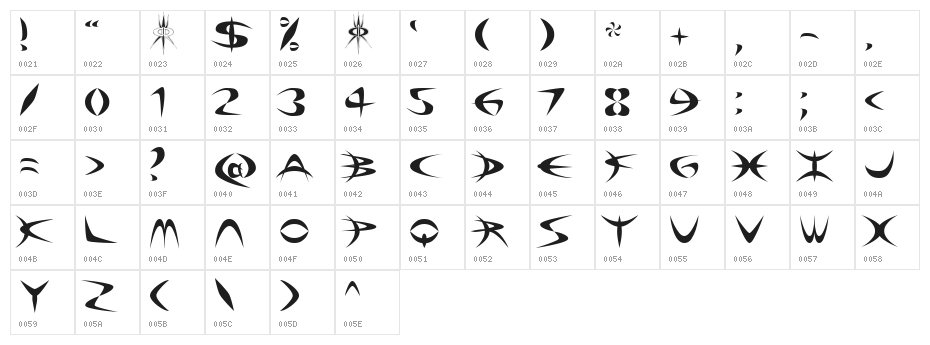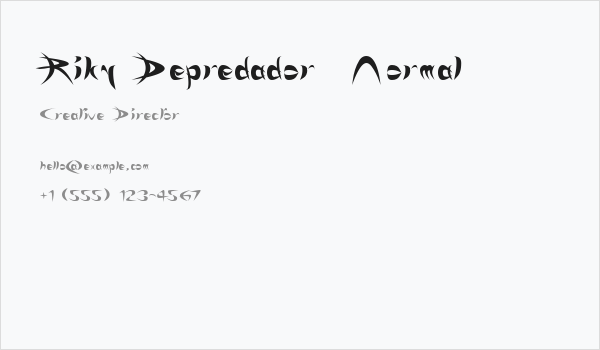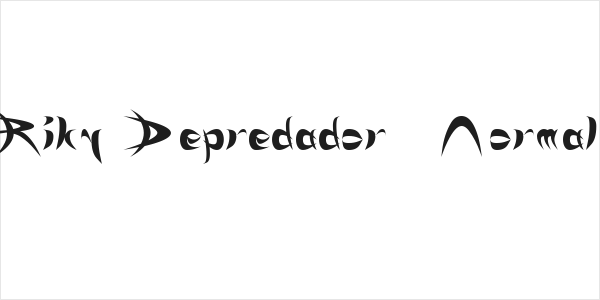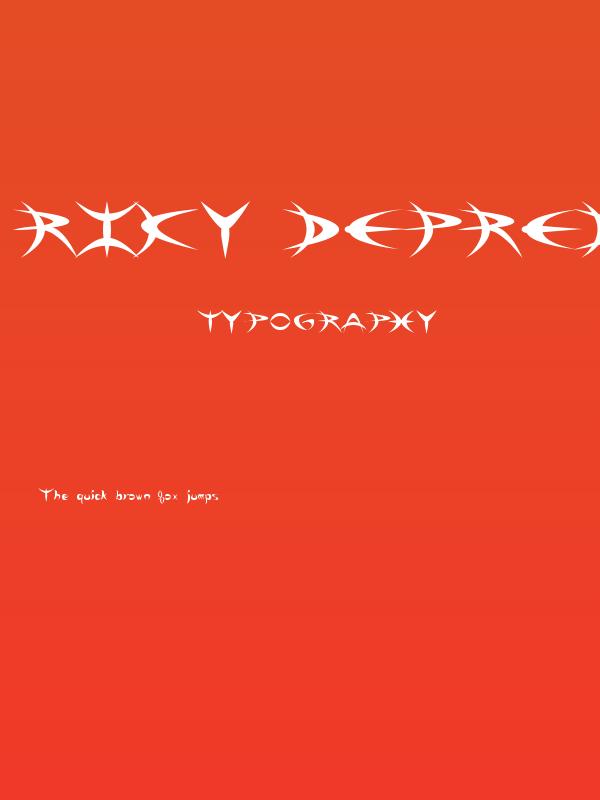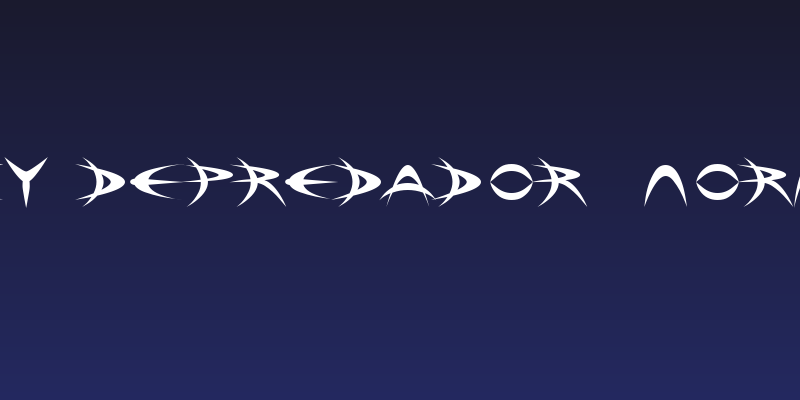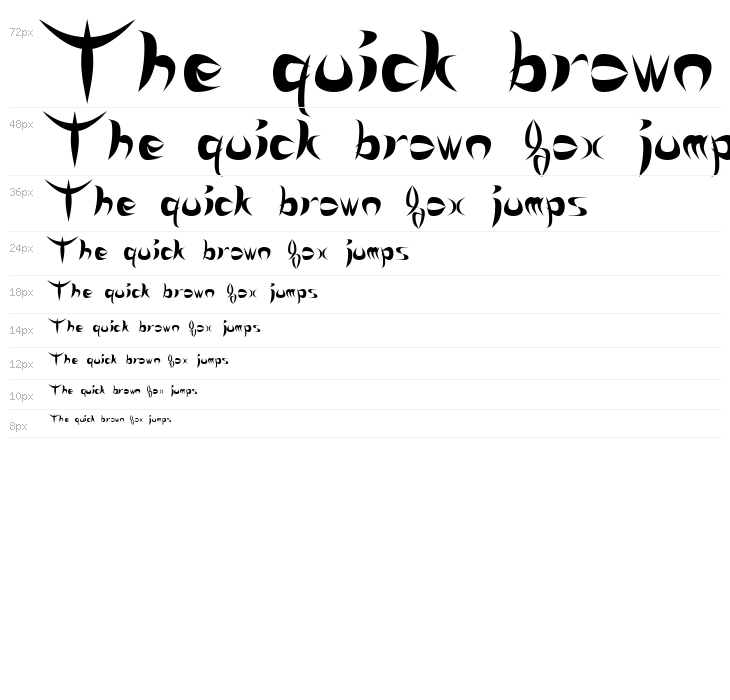
Riky Depredador Normal Font
Riky Depredador Normal Description
This font features a highly decorative and edgy style, characterized by sharp, angular lines and unique, tribal-inspired shapes. Each character is designed with intricate details that give it a fierce and dynamic appearance. The uppercase letters are particularly striking, with elongated and pointed elements that create a sense of movement and aggression. The lowercase letters maintain the same aesthetic, with a slightly softer touch that balances the overall look. Numbers and special characters follow the same design principles, ensuring consistency across the font. This font is ideal for projects that require a bold and unconventional look, making it perfect for creative and artistic endeavors.
| Proposed Projects | Ideal for tattoo designs, album covers, video game graphics, and edgy branding projects. |